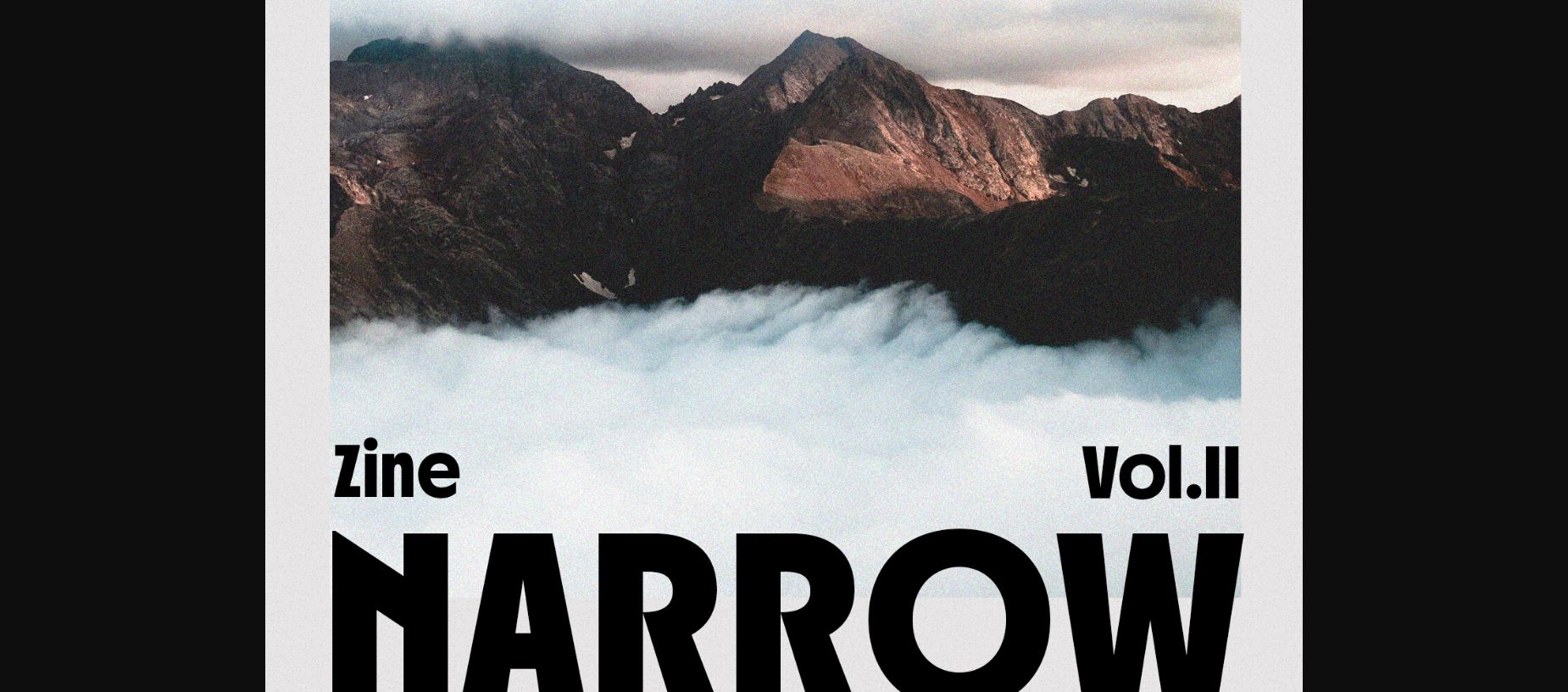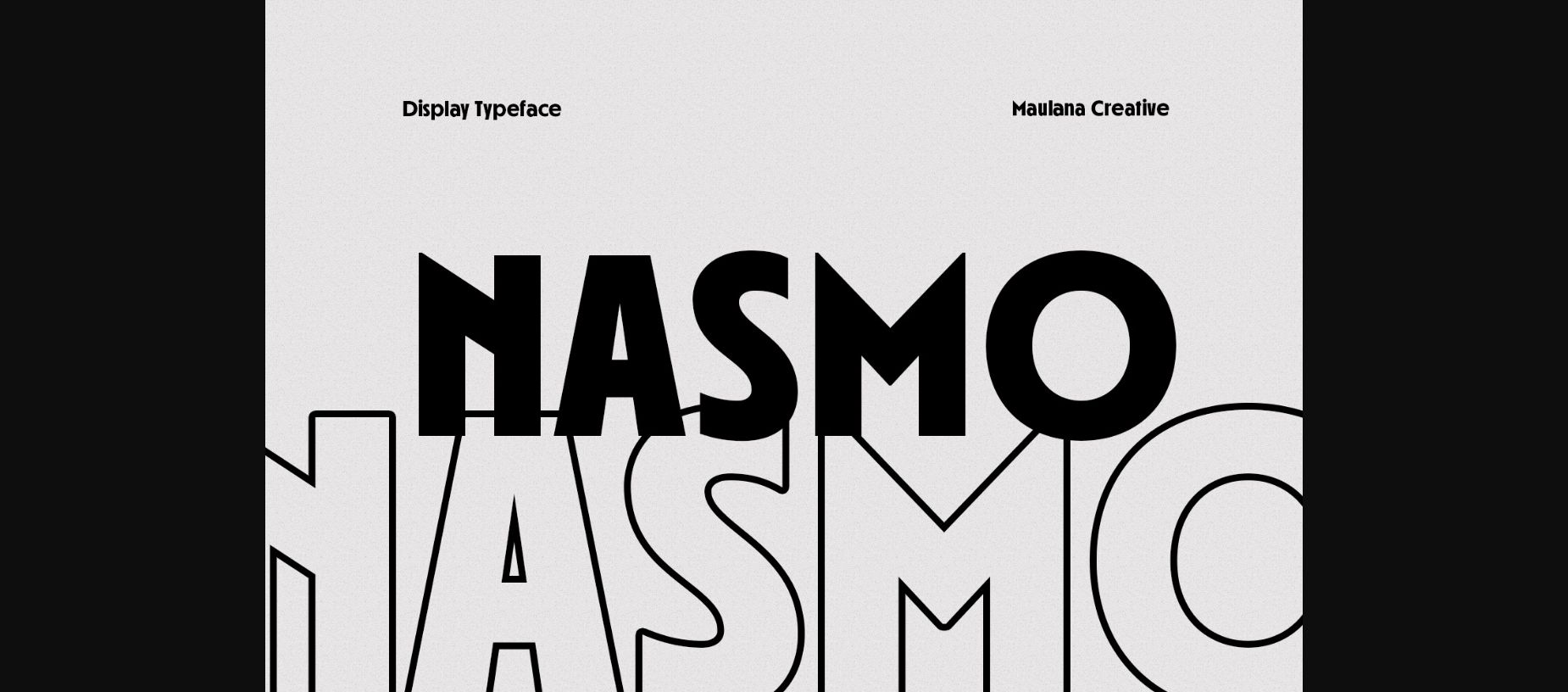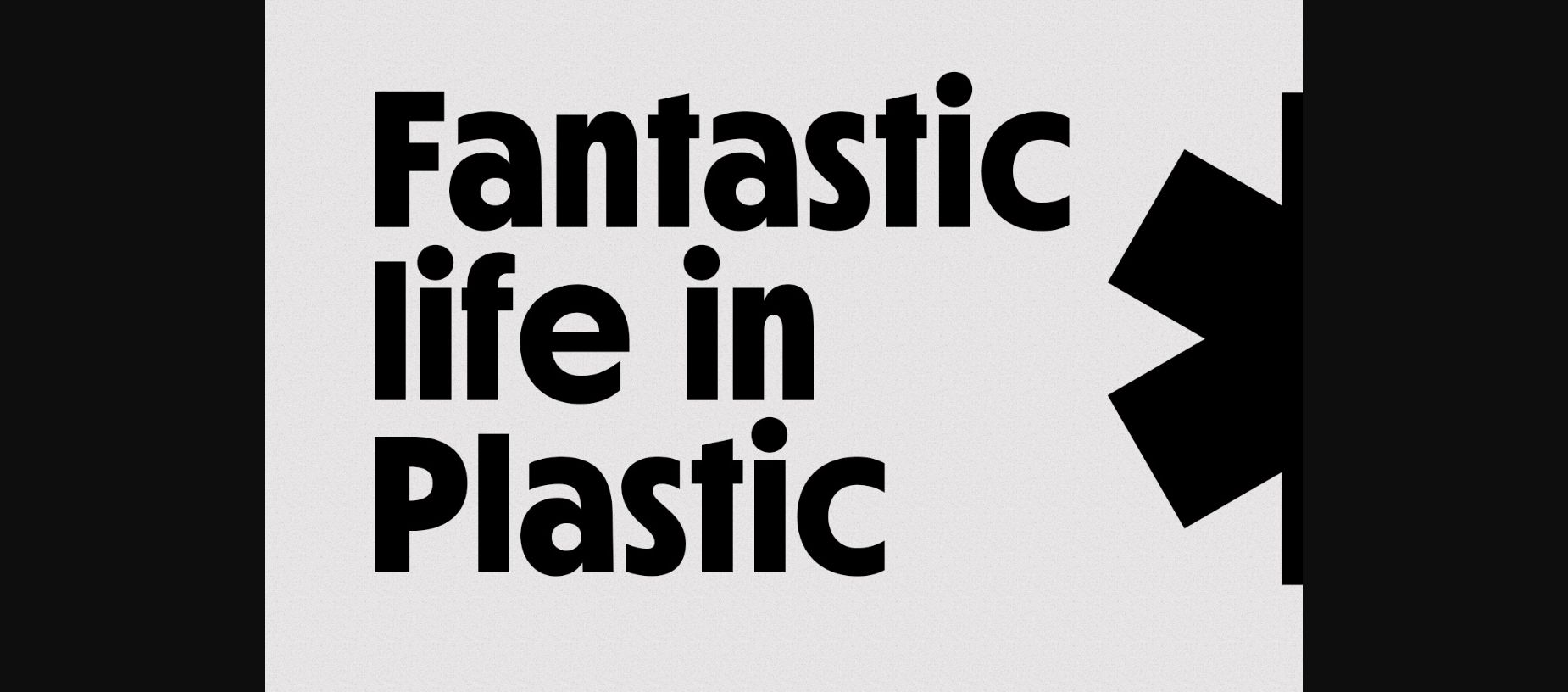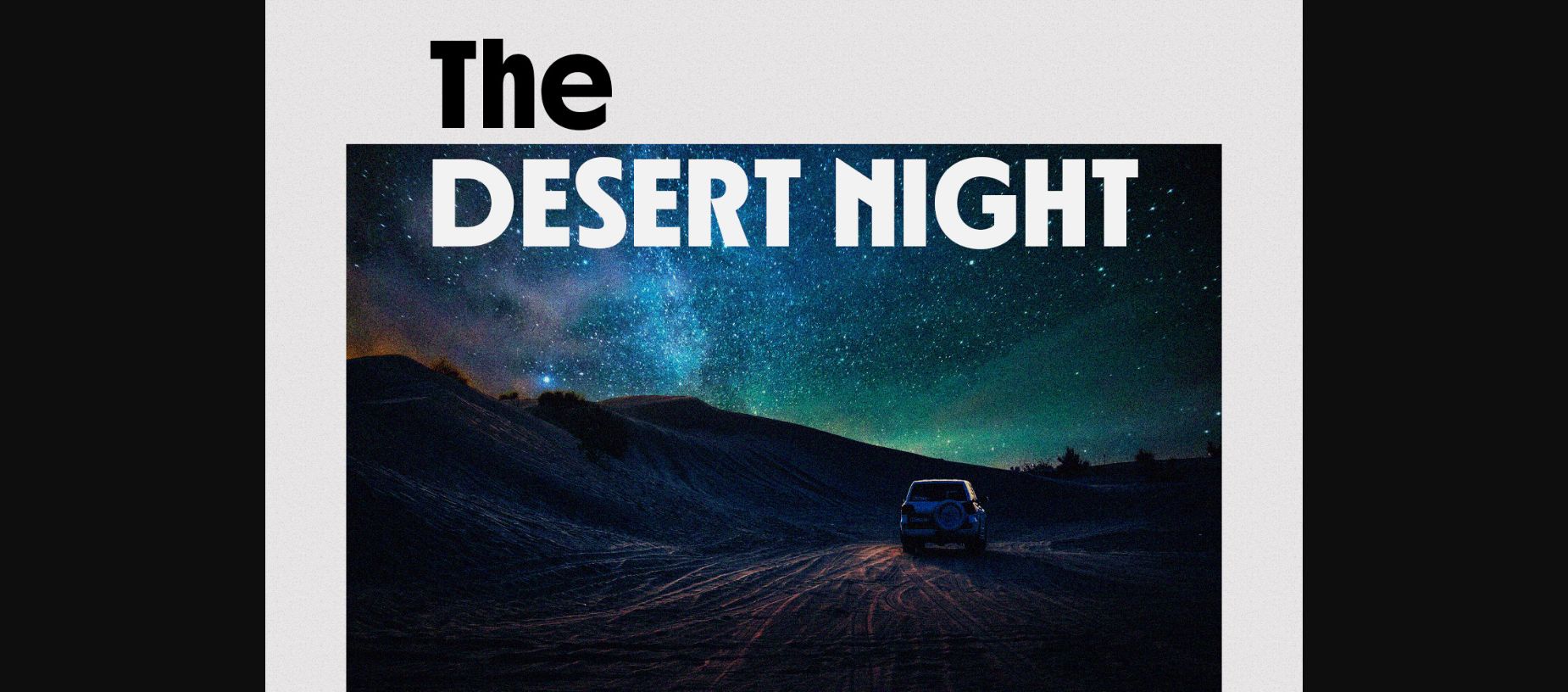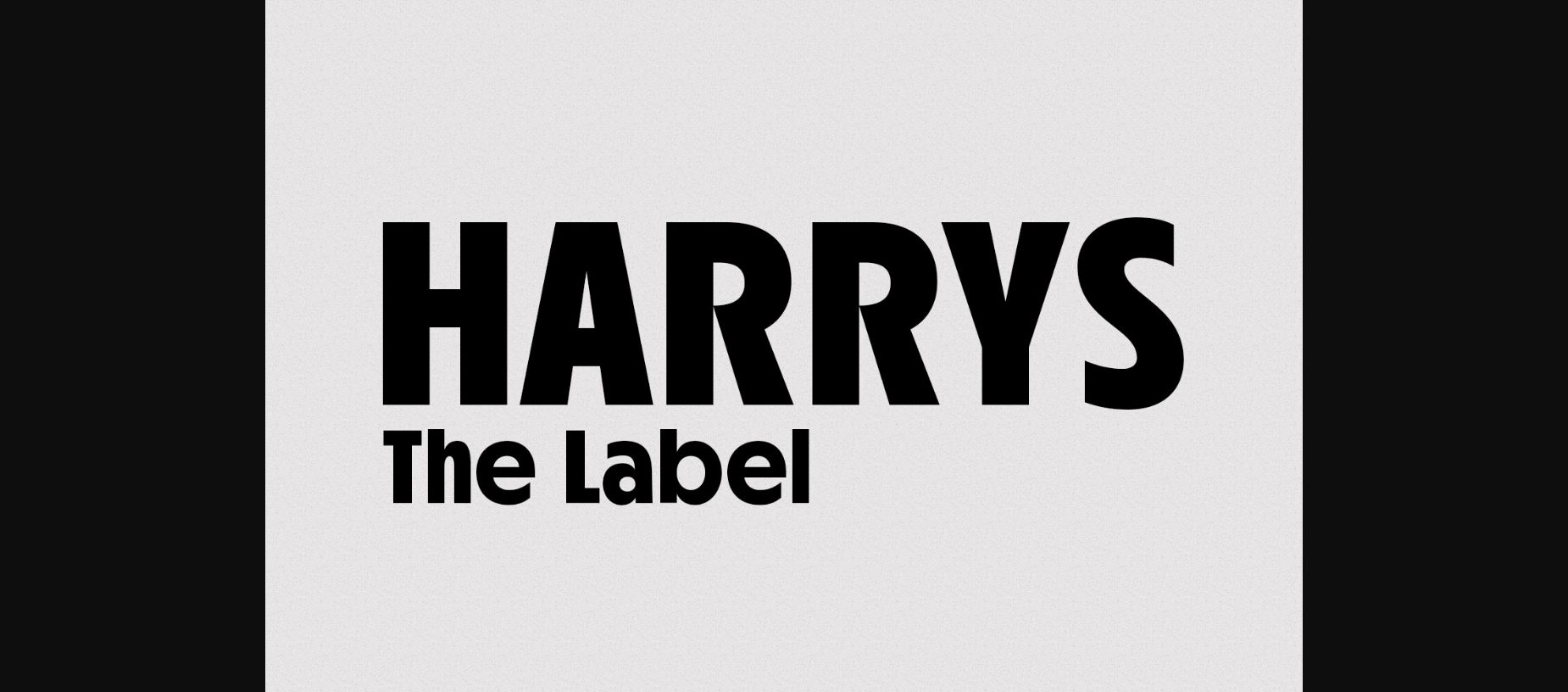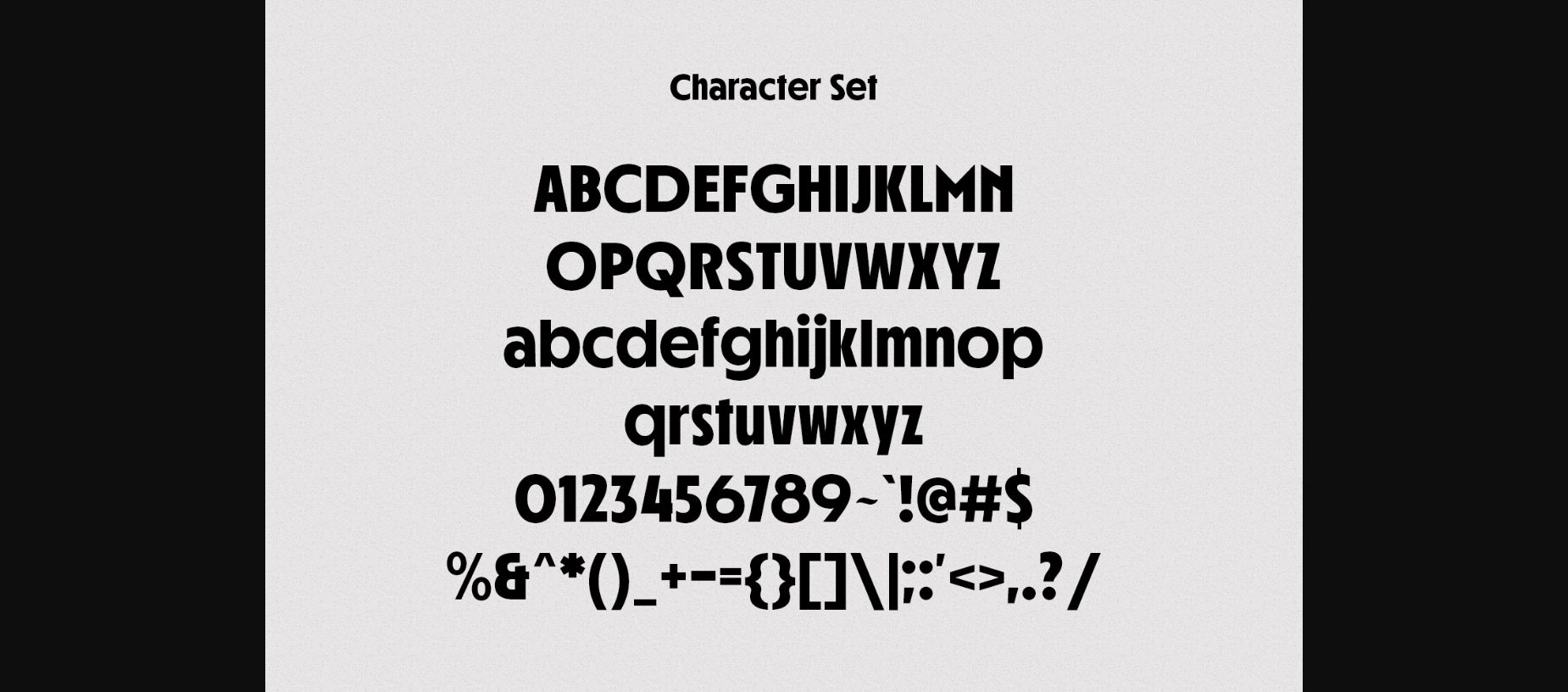
Nasmo Font
About Nasmo Font
Nasmo is a retro sans display font. Regular stroke, fun character with a bit of ligatures. To give you an extra creative work. Nasmo font support multilingual more than 100+ language. This font is good for logo design, Social media, Movie Titles, Books Titles, a short text even a long text letter and good for your secondary text font with script or serif. Make a stunning work with Nasmo font.